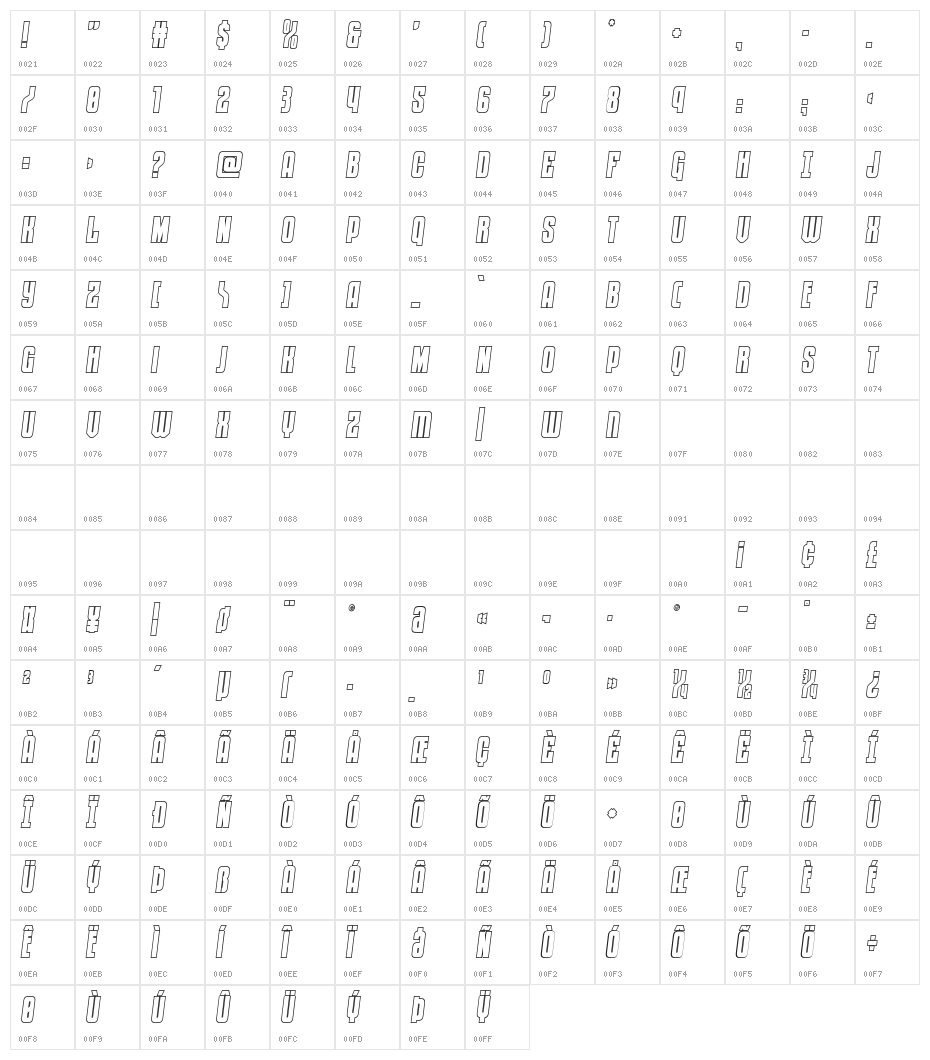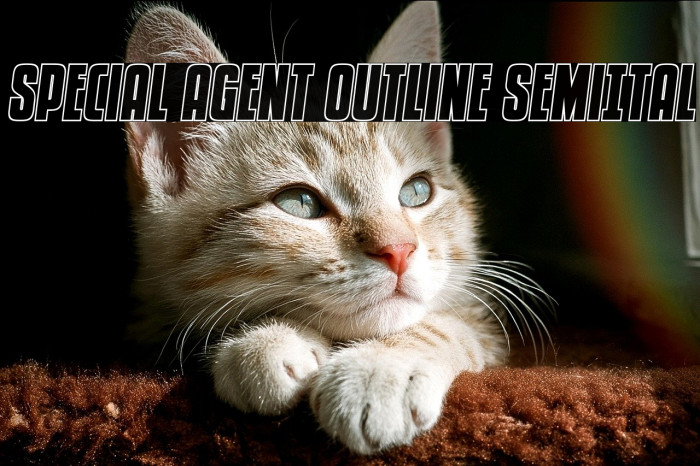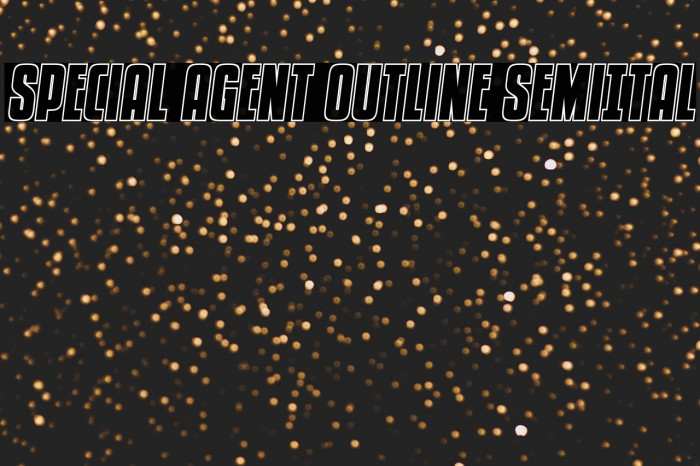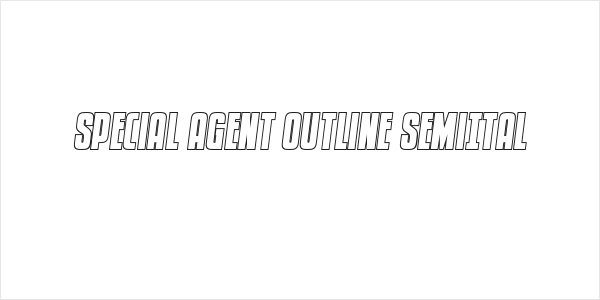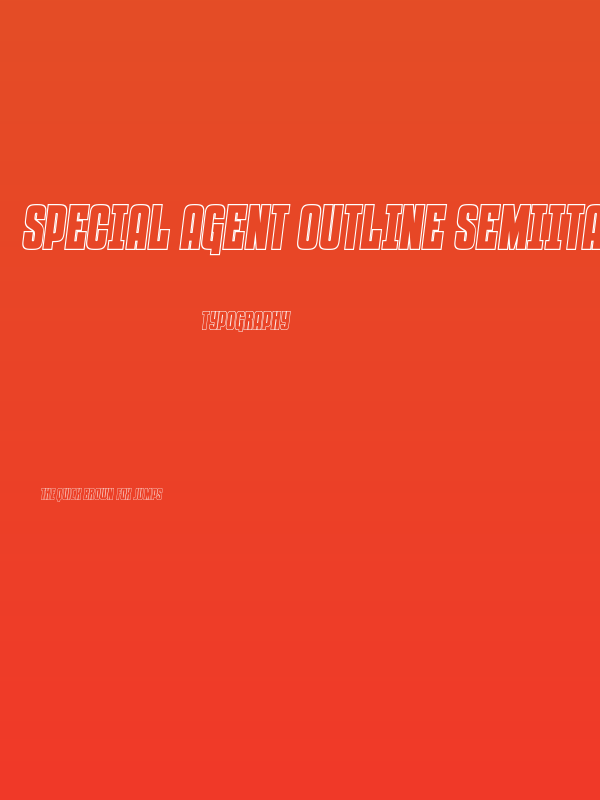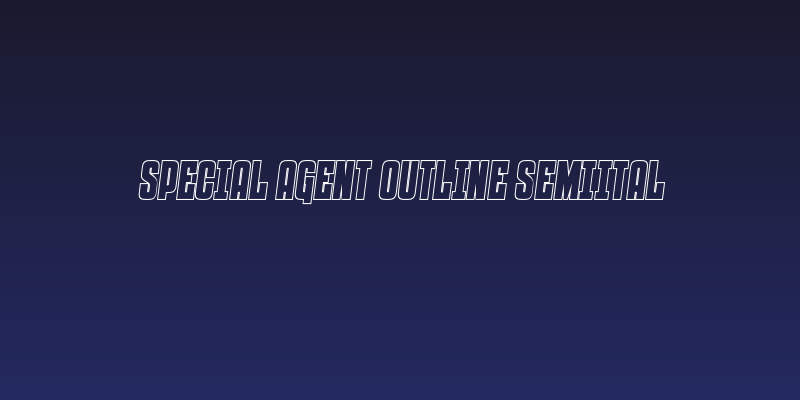
Special Agent Outline SemiItal Font
Special Agent Outline SemiItal Description
This font features a bold, outlined style with a semi-italic slant, giving it a dynamic and modern appearance. The uppercase letters are prominent and impactful, while the numbers and special characters maintain the same bold outline, ensuring consistency across all characters. The design is clean and sharp, with a slight forward tilt that adds a sense of motion and urgency. The spacing between characters is moderately tight, which enhances the cohesive look of the text. This font is particularly suitable for projects that require a strong visual impact, such as headlines or branding materials.
| Proposed Projects | Ideal for headlines, posters, branding, and any design needing a strong visual impact. |